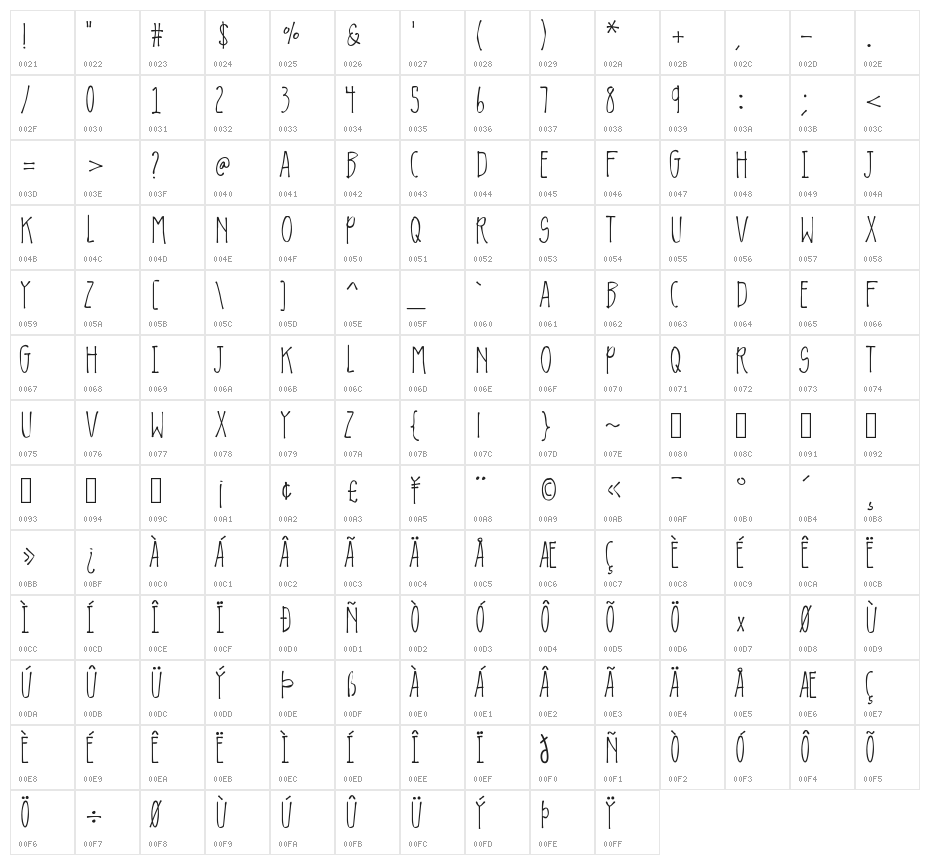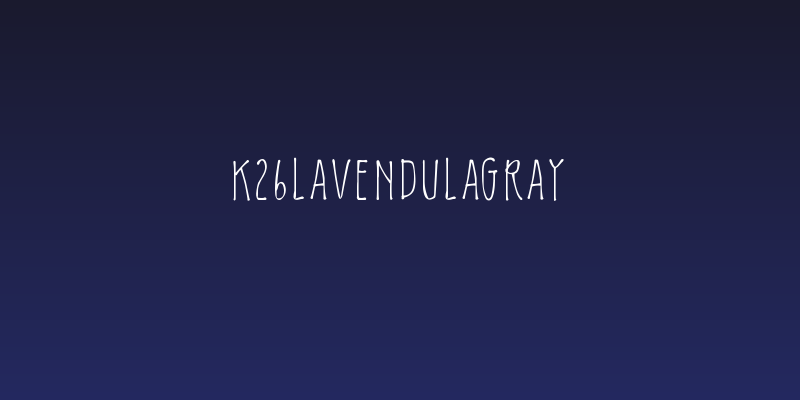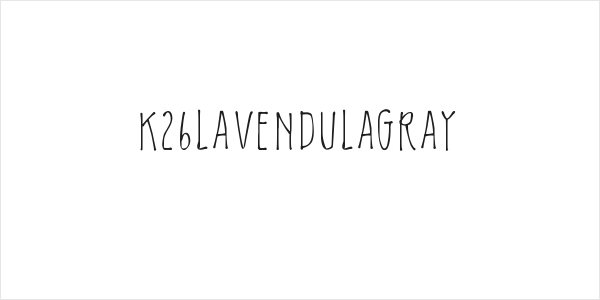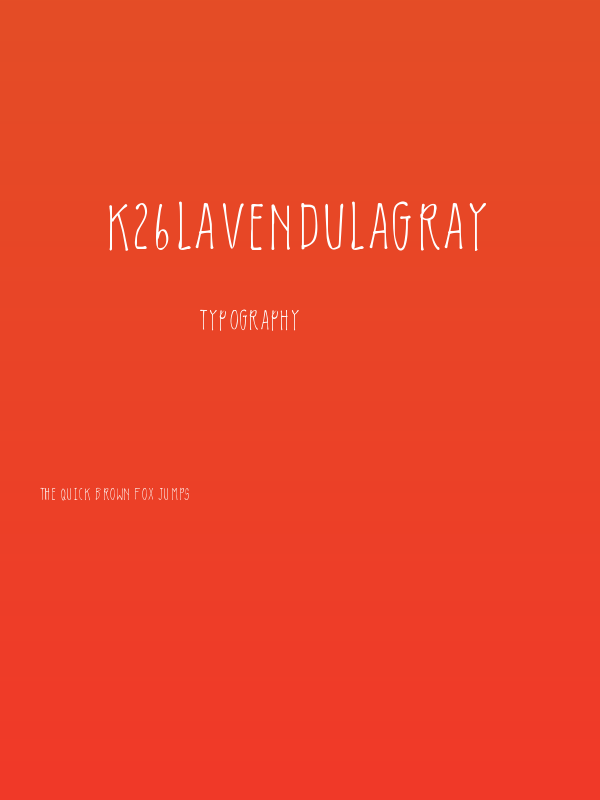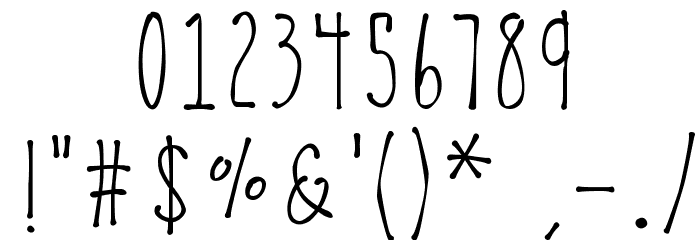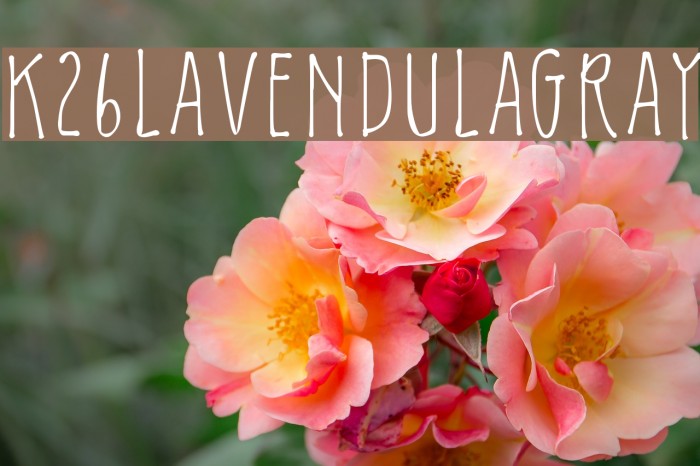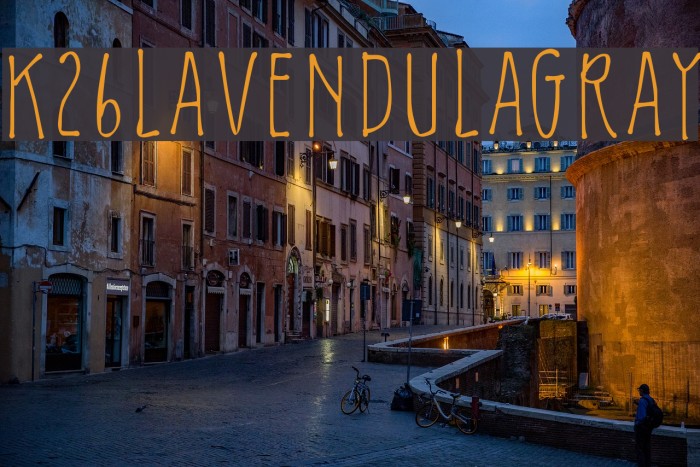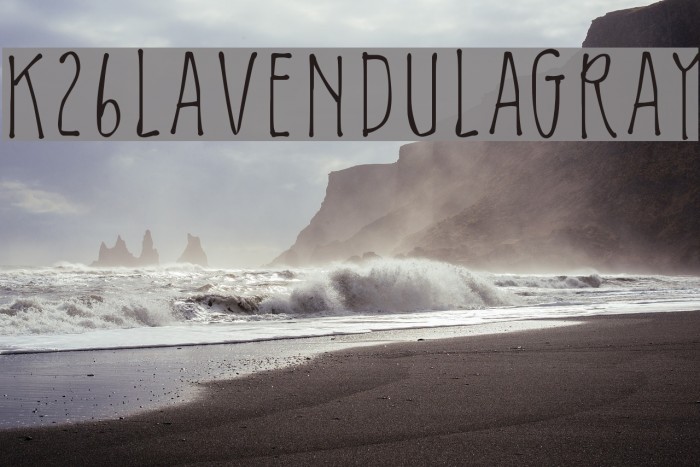
K26LavendulaGray Font
K26LavendulaGray Description
This font features a playful and whimsical handwritten style, characterized by its tall, narrow letters with slightly irregular strokes. The uppercase and lowercase letters maintain a consistent height, giving it a uniform appearance. The strokes are thin, with a slight variation in thickness that adds to its casual and informal feel. The numerals and special characters follow the same playful aesthetic, making it suitable for creative and artistic projects. The overall design is clean yet quirky, offering a unique charm that stands out in various applications.
| Overall Style | Playful, Casual |
| Use Case | Headlines, Creative projects, Informal text |
| Proposed Projects | Ideal for greeting cards, children's books, creative posters, and casual branding. |